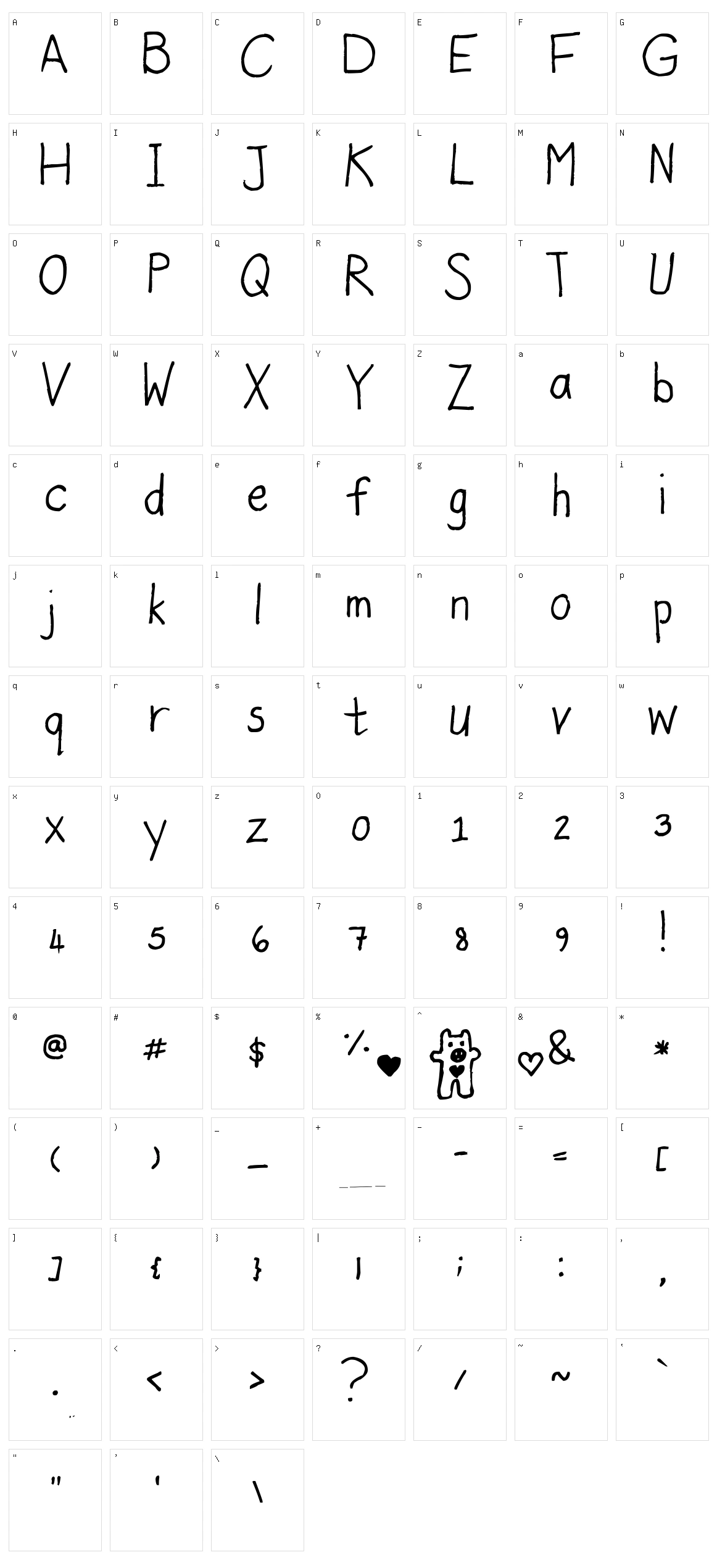
The free font Kristen always not so normal is carefully designed by FontPanda, showcasing a thoughtful balance of creativity and usability and falls under the Script font style. When you download the ZIP file, it contains only 13.26 KB of font files, making it lightweight and quick to download. Please review the license details below to understand permitted usage and distribution rights. If license information is not available, we recommend using this font for personal projects only or contacting the author directly for commercial usage permissions.